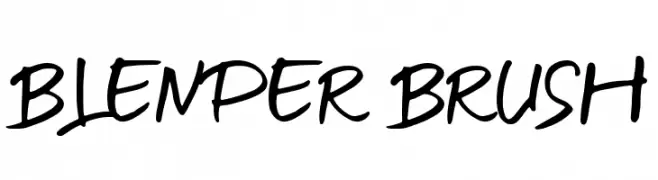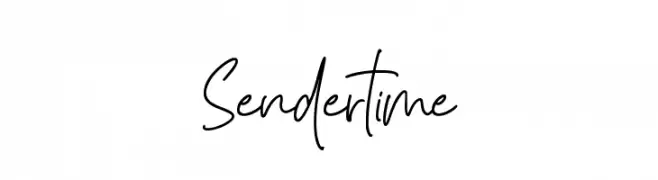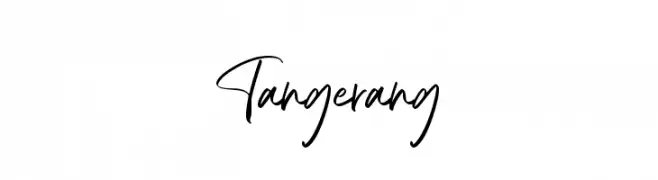
A fluid and elegant script font with a handwritten style.
A dynamic brush-style font with fluid, hand-drawn strokes.
A bold, brush-style font with dynamic, hand-painted strokes.
A casual, handwritten font with fluid, dynamic strokes and a natural flow.
A bold, expressive script font with a handwritten feel.
A dynamic handwritten font with fluid strokes and playful curves.
A modern, handwritten-style font with elegant, flowing strokes.
A lively and expressive handwritten font with fluid, dynamic strokes.
An elegant script font with flowing, cursive letterforms and moderate contrast.
A cursive, handwritten font with elegant, flowing strokes.